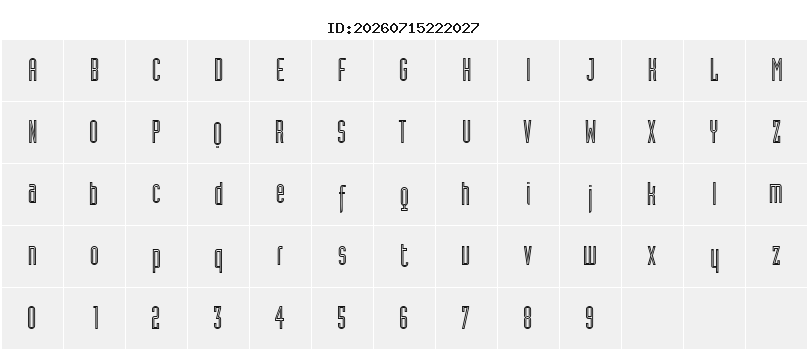
AssemblyAlternateSSK Preview
• Font Name: AssemblyAlternateSSK
• Full Font Name: AssemblyAlternateSSK
About AssemblyAlternateSSK.ttf
AssemblyAlternateSSK.ttf is a modern, elegant sans-serif font designed for ultimate readability and visual harmony. Perfect for branding, headlines, web design, and print materials.